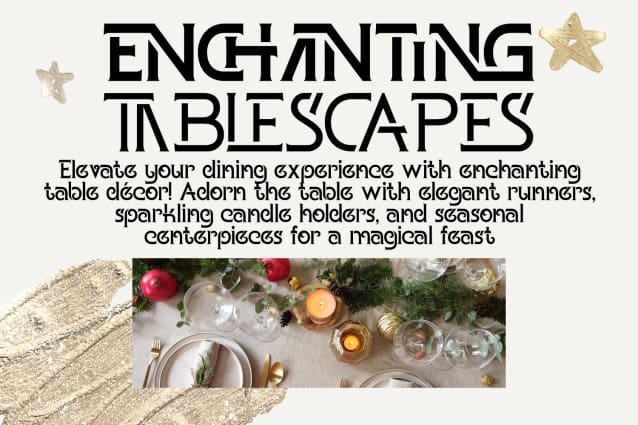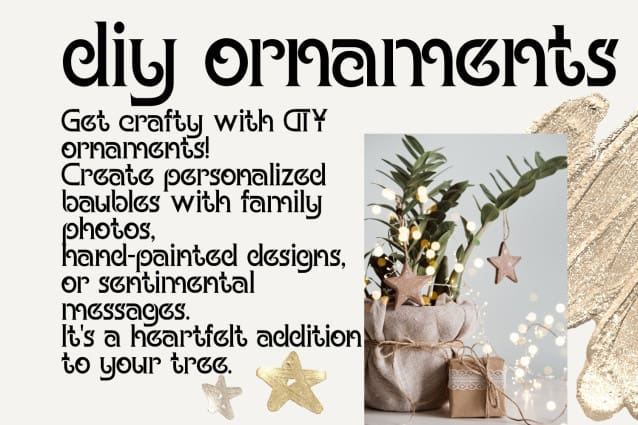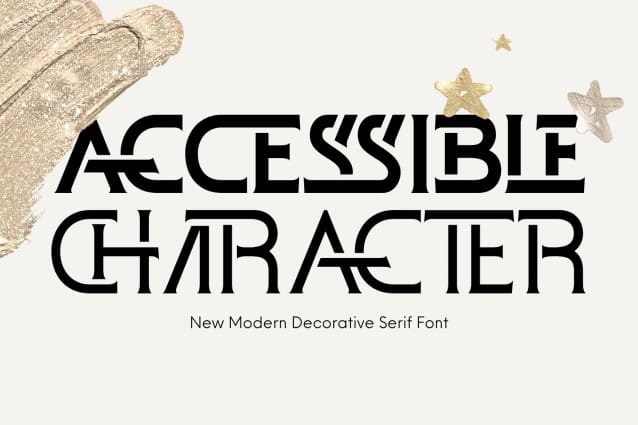
Accessible Character Font
Accessible Character Font is a elegant and classy serif typeface – This font is both modern and nostalgic and works great for logos, magazine, social media. Already matched up and ready to be used together for your next design! For those of you who are needing a touch of elegant, stylish, classy, chic and modernity for your designs, this font was created for you!
Accessible Character was built with OpenType features and includes 100 ligatures, alternate, numbers, punctuation, and it also supports other languages.
AC AD AL AN AR AS AT AU AV BE CA CE CH CO CT DE DI EA EC ED EE EL EM EN EP ER ES ET FE FO FR GE HA HE HI HO IE IC IL IN IO IR IS IT JU KE LA LE LI LL LO LY MA ME MI NC ND NE NG NO NT NS OC OF OM ON OO OP OR OT OU OW PA PR RA RD RE RI RO RS RT SE SH SI SO SS ST TA TE TH TI TO TR TT UM UN UR VE WI WO